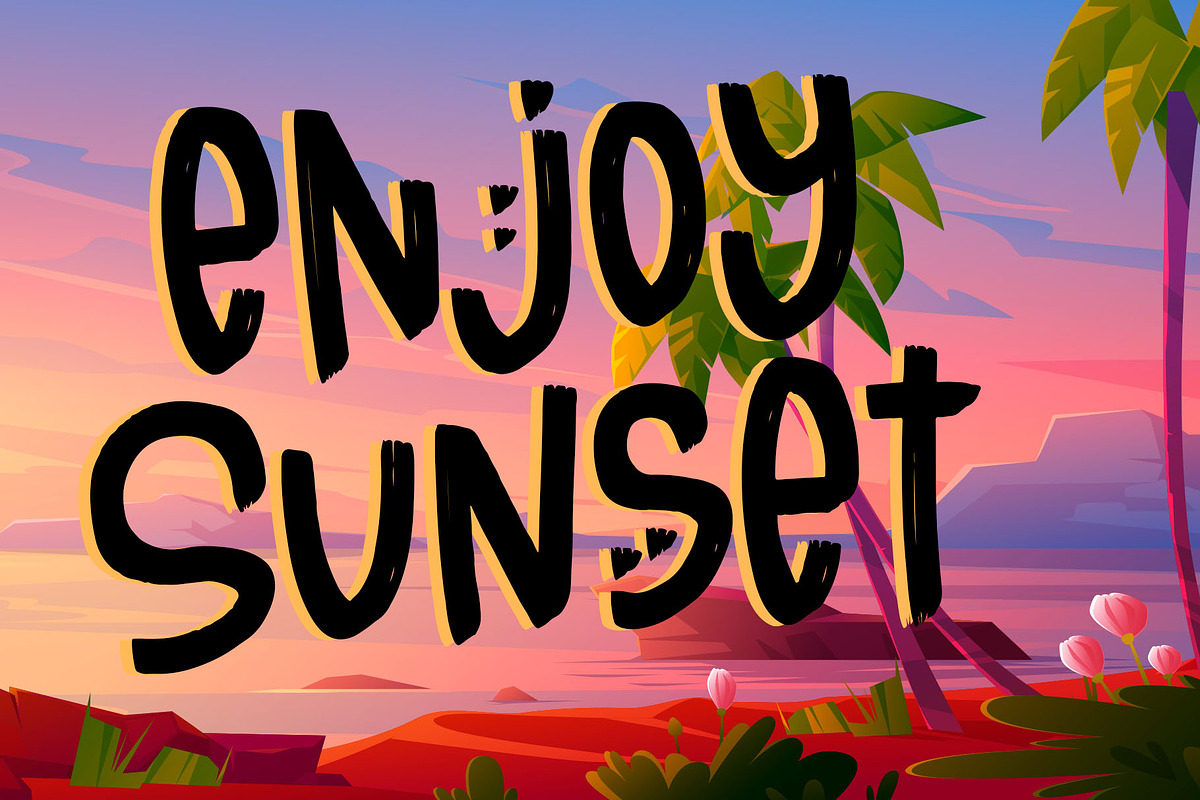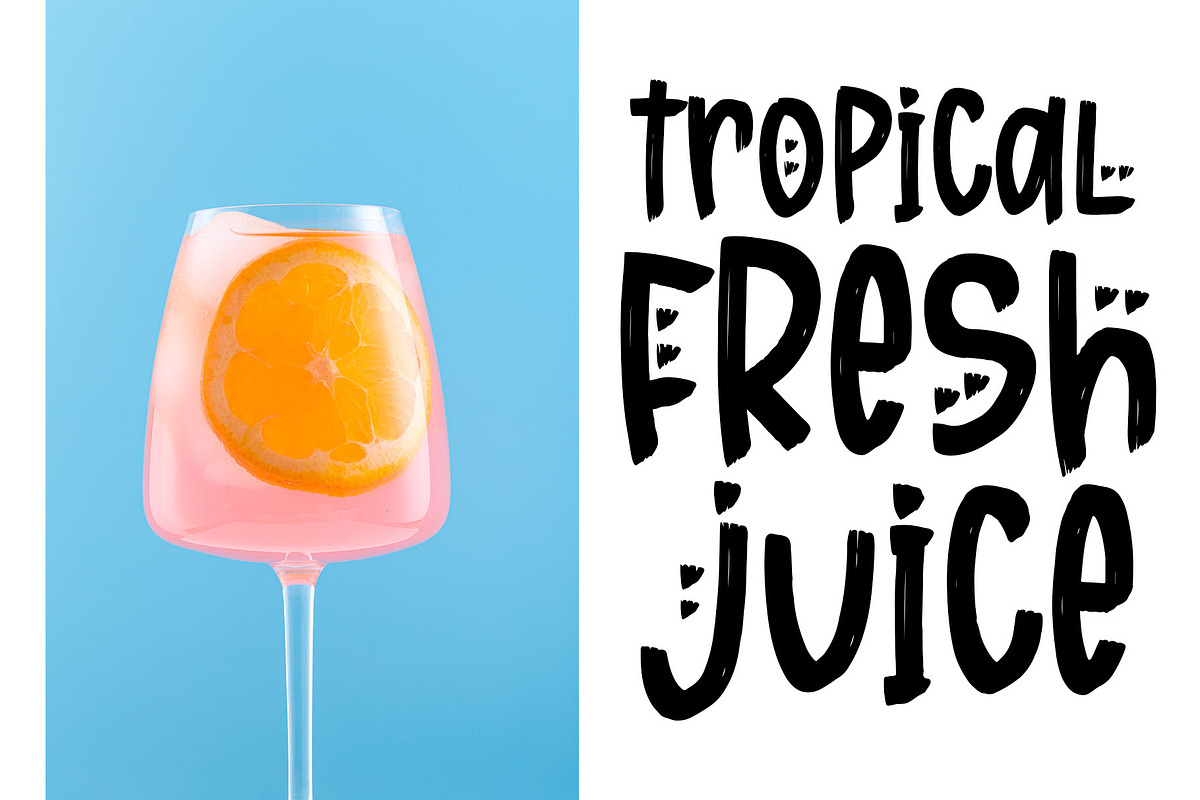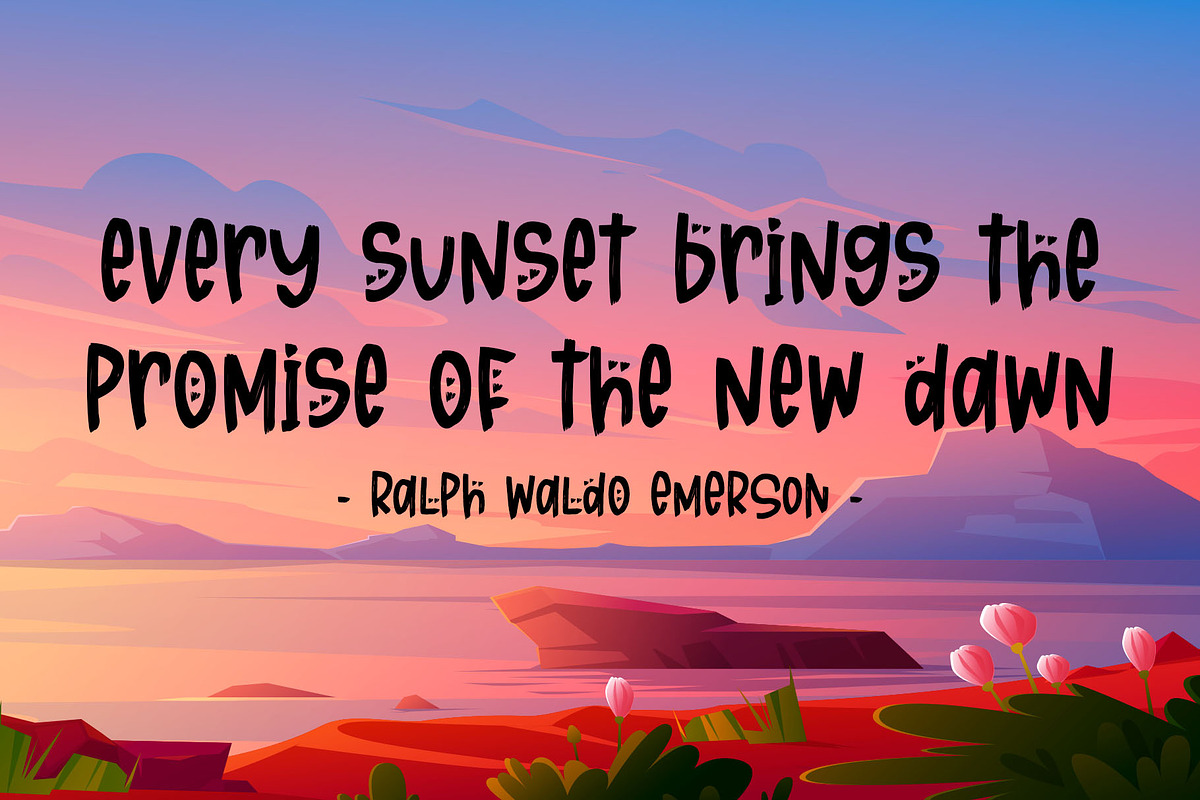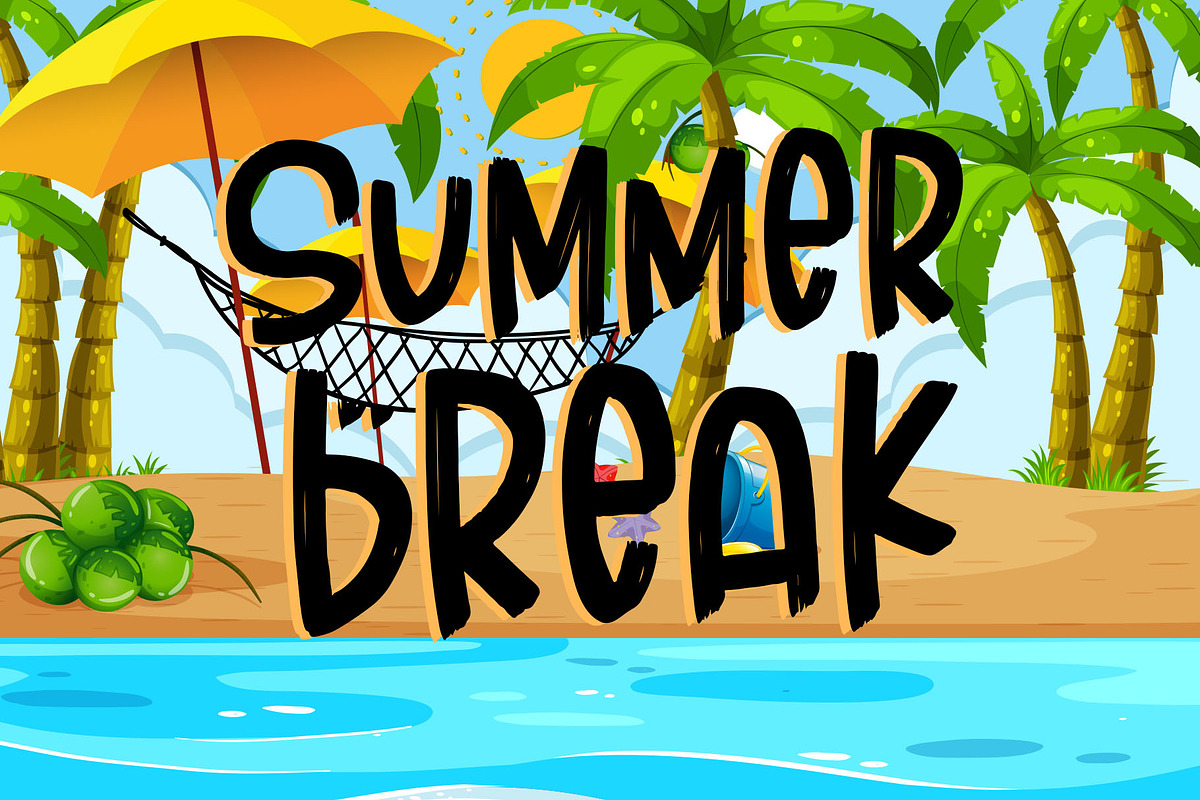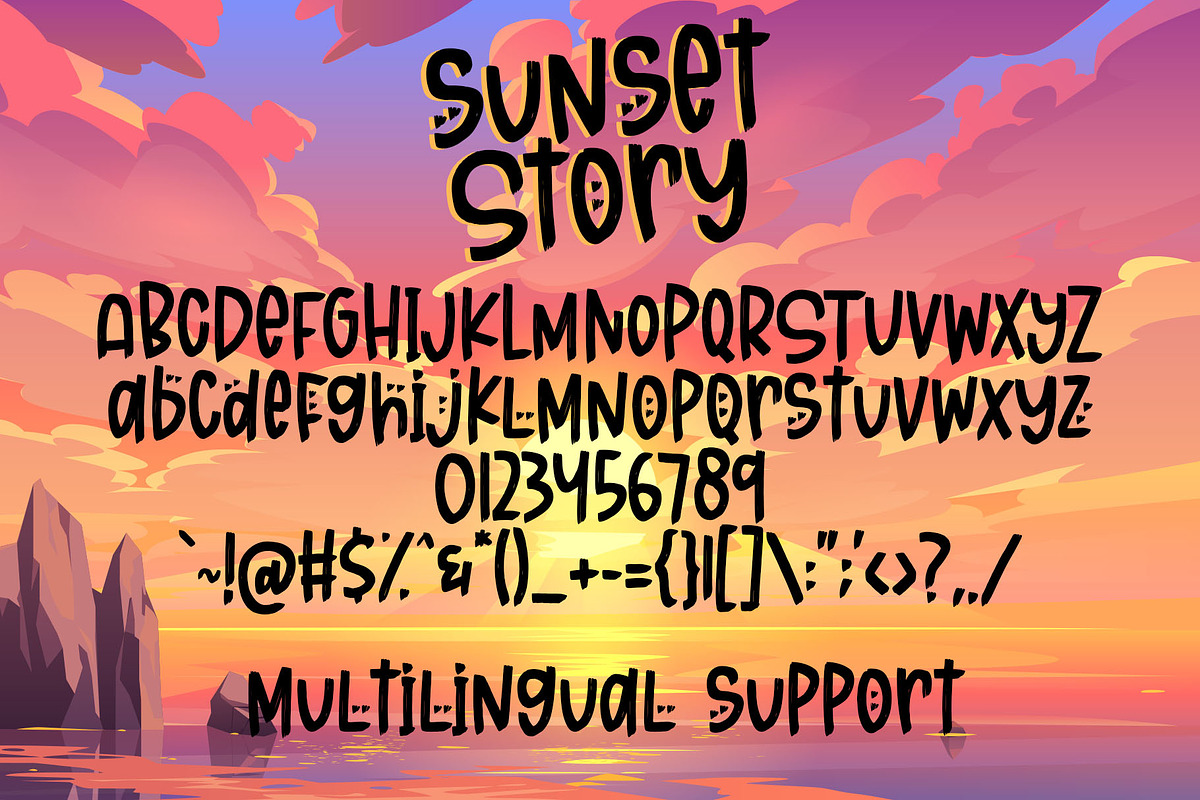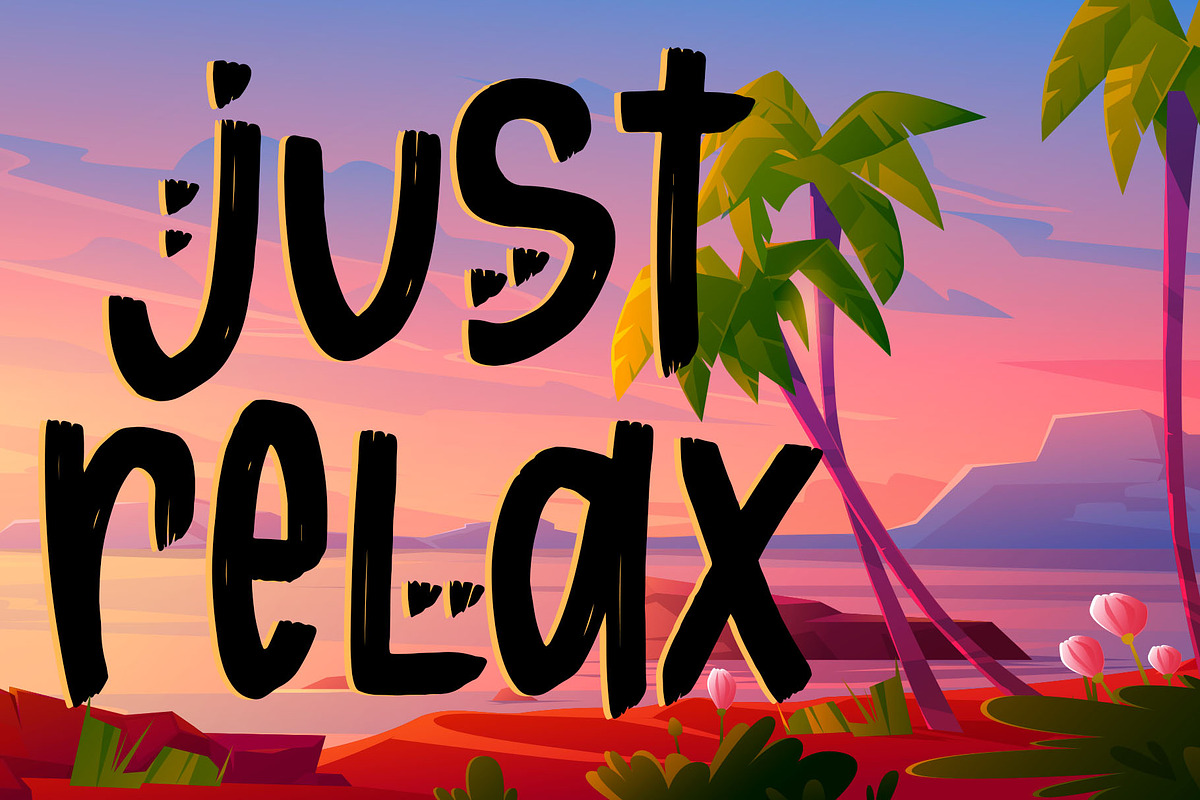
Sunset Story - Handwritten Font
Sunset Story is a quirky brush font, for greeting your summer days!
Sunset Story - Handwritten Font by Dm Studio fits naturally into Branding, posters, packaging, typography.